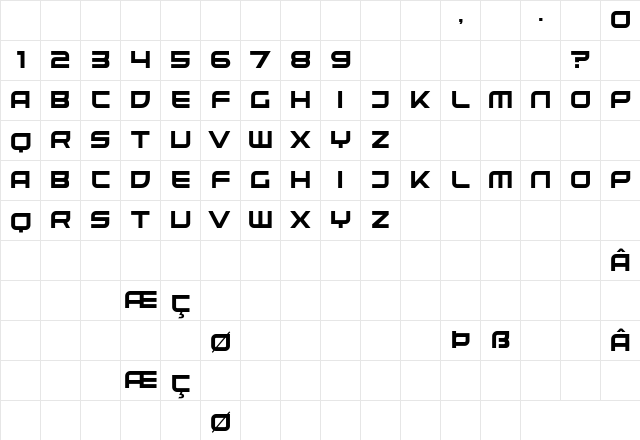
United Kingdom Regular
Design Context for United Kingdom Typeface
United Kingdom takes a measured approach to typography — its balanced proportions and neutral character make it a reliable workhorse for both digital and print work.